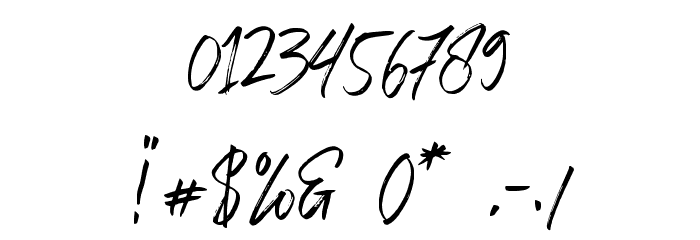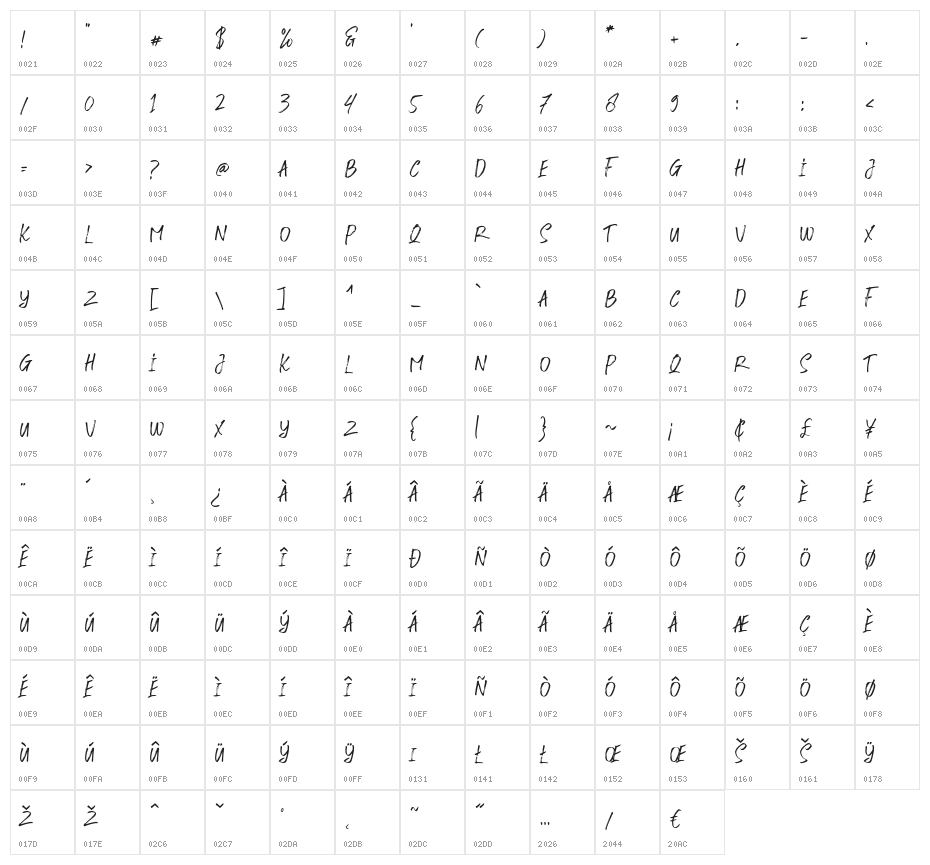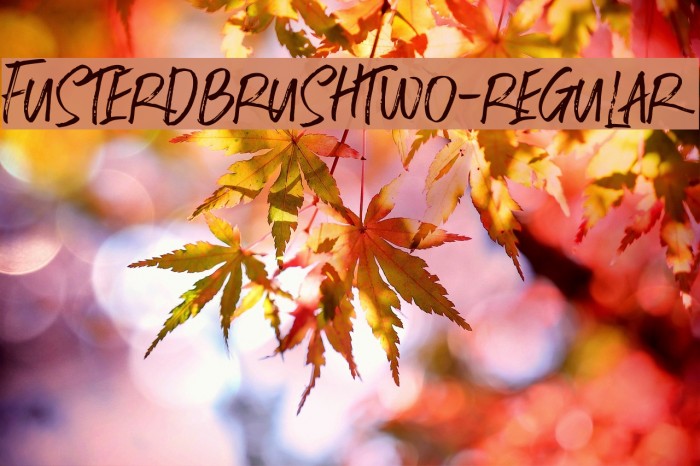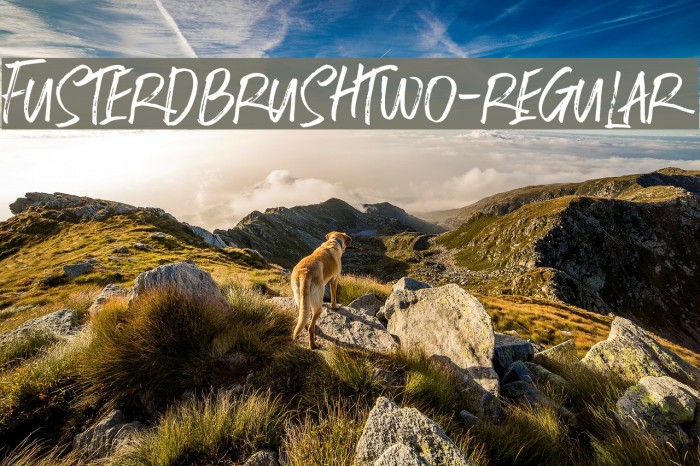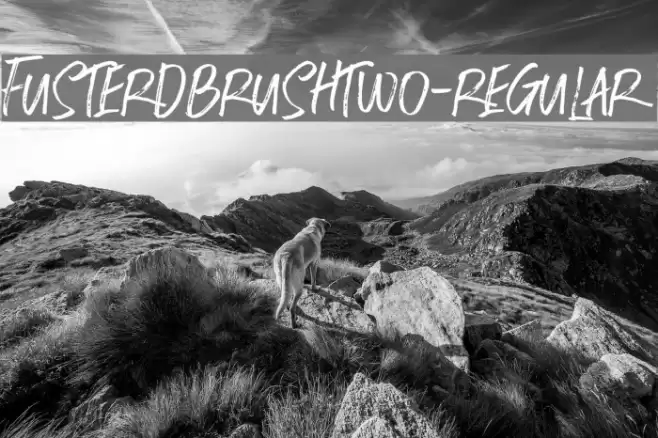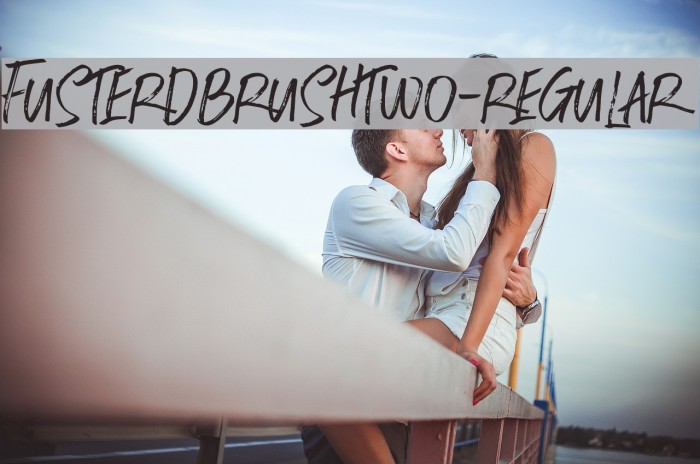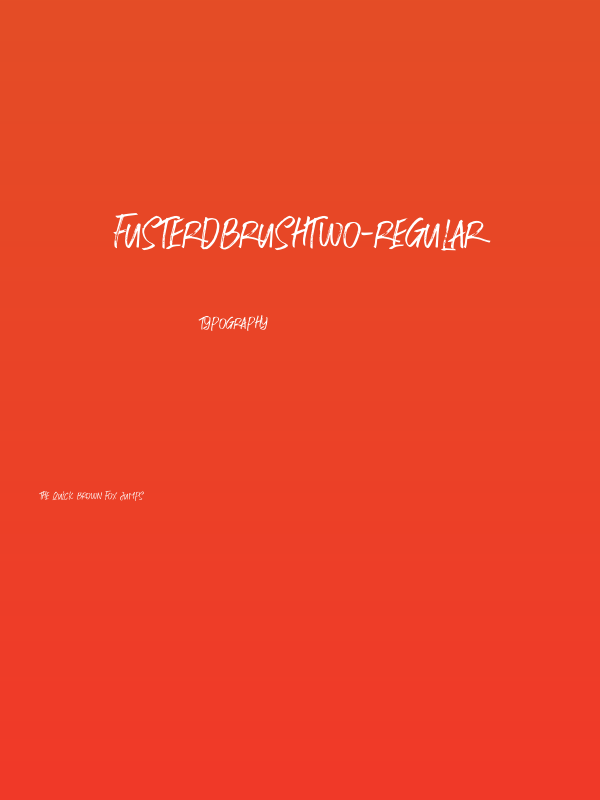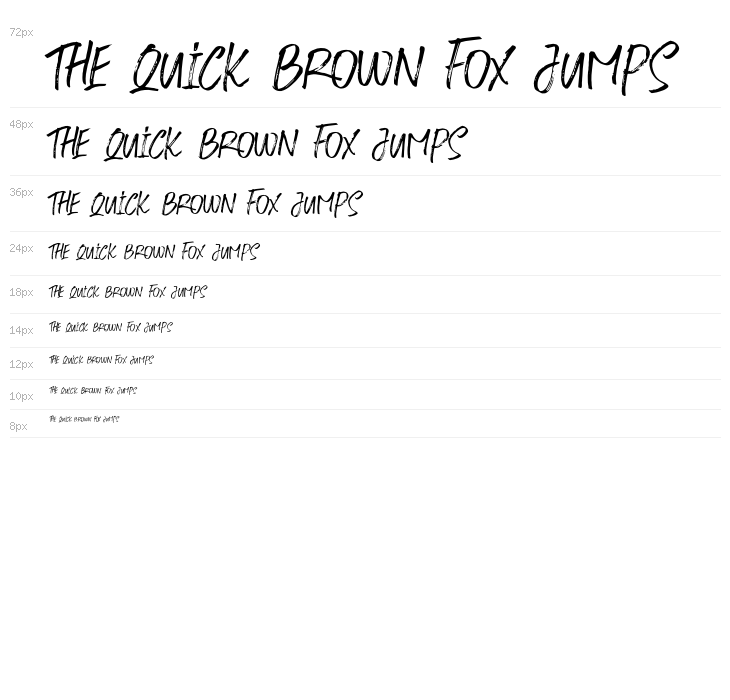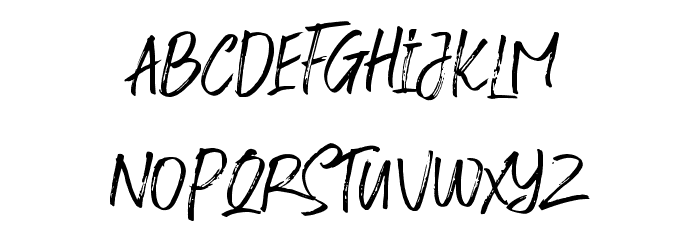
FusterdBrushTwo-Regular Font
FusterdBrushTwo-Regular Description
This font exhibits a dynamic and expressive style, characterized by its brush-like strokes that convey a sense of movement and energy. The letters have a hand-drawn appearance, with varying thicknesses that add to its artistic flair. The uppercase and lowercase letters maintain a consistent flow, while the numerals and special characters integrate seamlessly with the overall design. The font's irregular edges and organic shapes give it a raw, authentic feel, making it ideal for projects that require a personal touch or a creative, informal vibe.